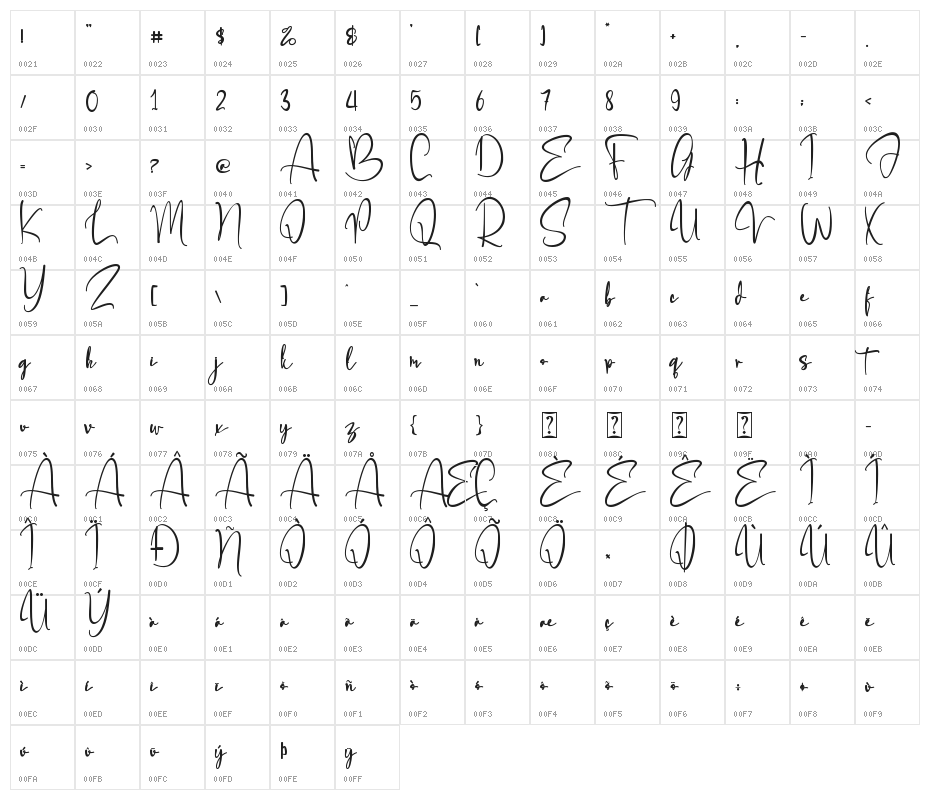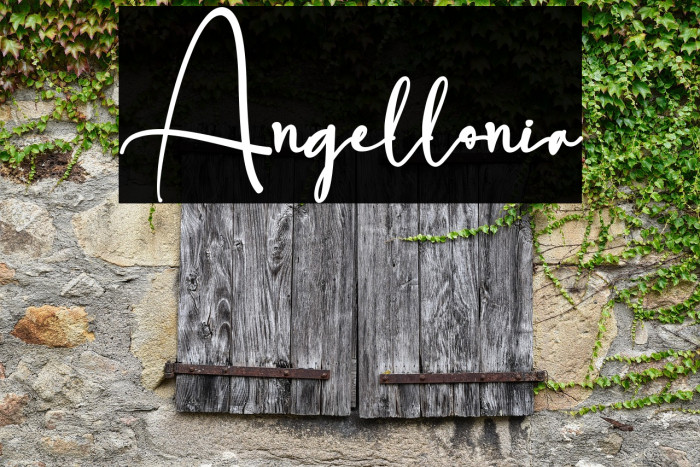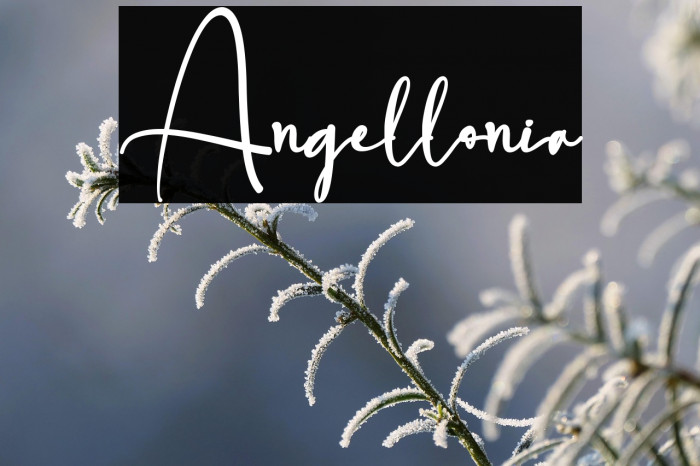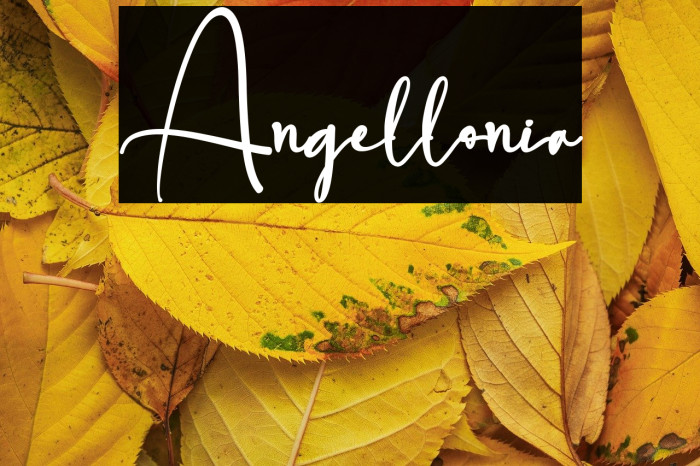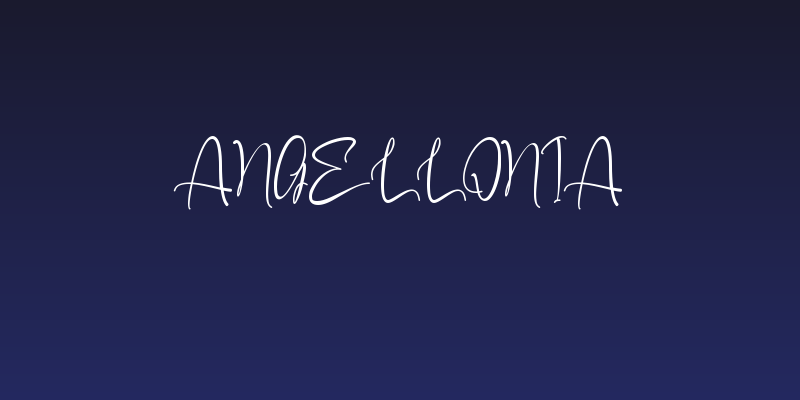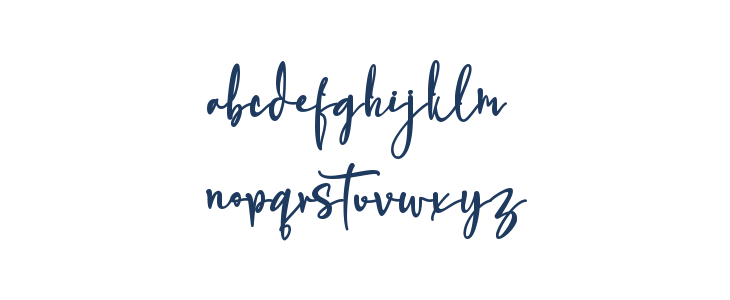
Angellonia Font
Angellonia Description
This font features a lively and expressive handwritten style, characterized by its fluid and dynamic strokes. The uppercase letters are tall and elegant, with a slight slant that adds a sense of motion and grace. The lowercase letters are more compact, with playful loops and curves that give the font a whimsical feel. Numbers and special characters maintain the same energetic style, ensuring consistency across all text elements. The overall appearance is both modern and artistic, making it suitable for creative projects that require a personal touch.
| Use Case | Logos, Invitations, Social Media |
| Proposed Projects | Ideal for wedding invitations, greeting cards, branding projects, and social media graphics. |